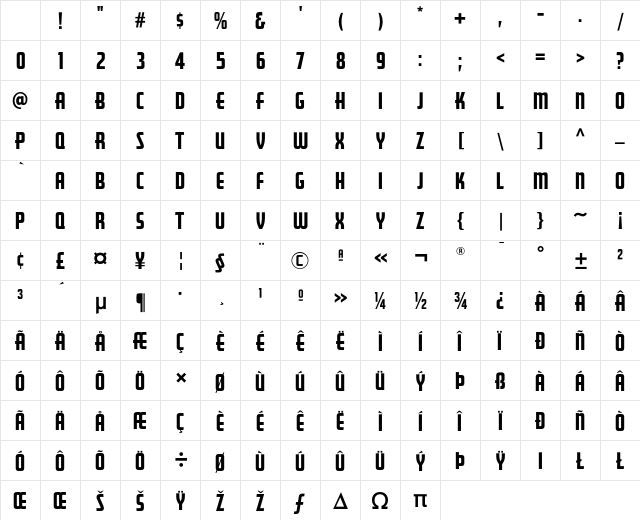
GoldenGate-Gothic Regular
Design Context for GoldenGate-Gothic
GoldenGate-Gothic takes a clean, functional approach - its unadorned letterforms prioritise legibility and work reliably across screen and print environments.
Font Pairing: Works well alongside a characterful serif or display font that can carry the expressive load while GoldenGate-Gothic handles the functional copy.
Pro Tip: Use GoldenGate-Gothic for UI labels, navigation, and short-form body copy where clean legibility is the priority.